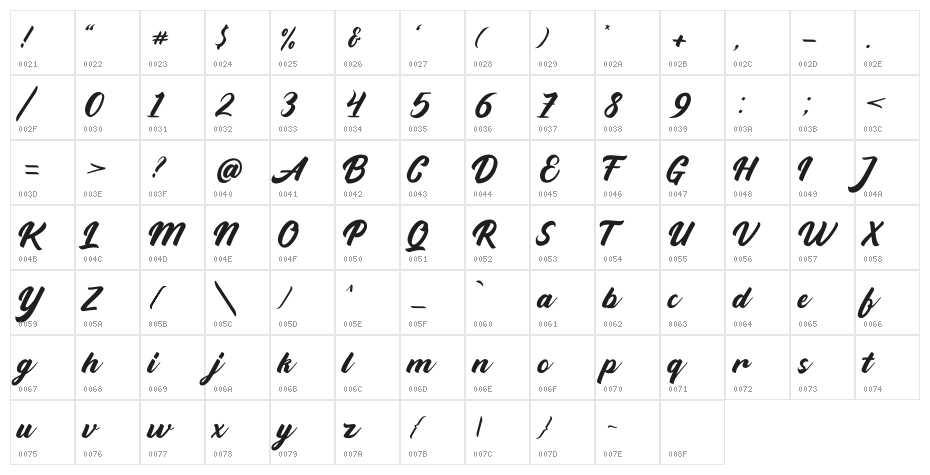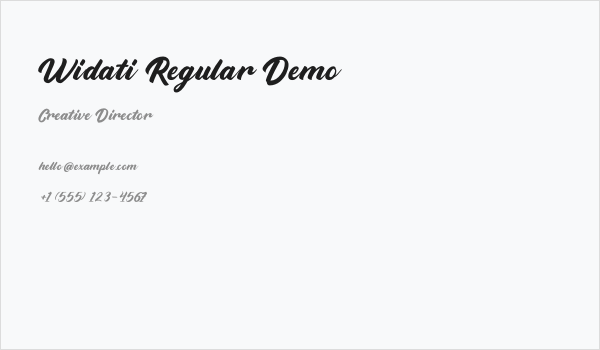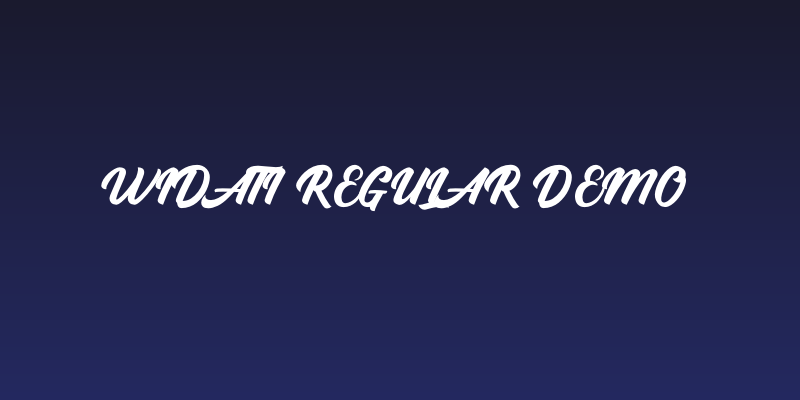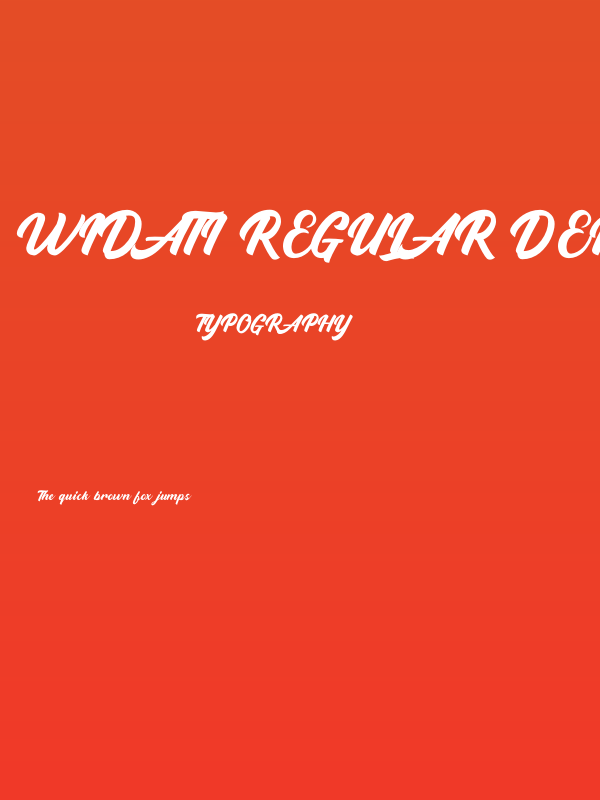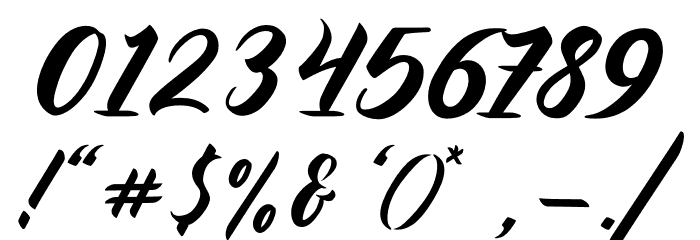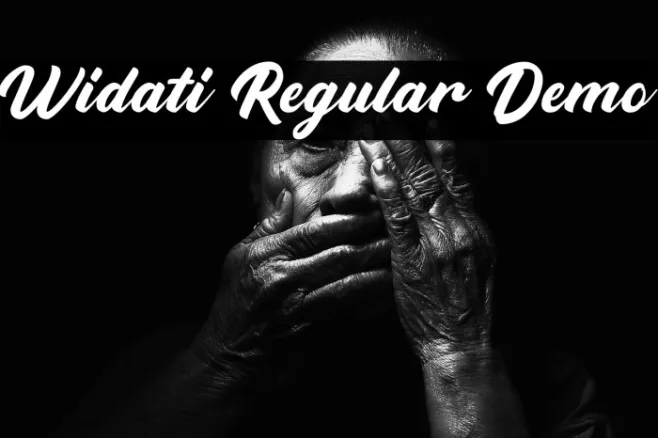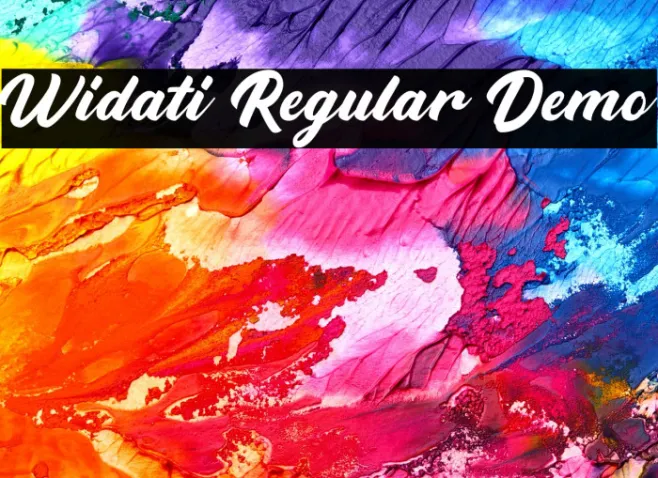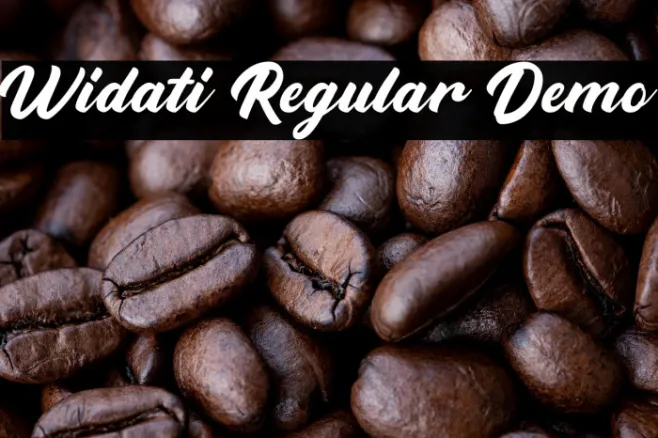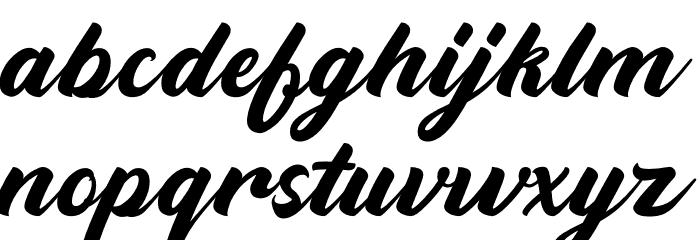
Widati Regular Demo Font
Widati Regular Demo Description
This font features a bold, flowing script style that exudes elegance and sophistication. The characters are interconnected, creating a seamless and fluid appearance. The uppercase letters are particularly striking, with sweeping curves and dramatic flourishes. The lowercase letters maintain a consistent style, with a slightly more subdued flair. Numbers and special characters are designed to match the overall aesthetic, ensuring a cohesive look across all text. The font's bold weight and high contrast between thick and thin strokes make it highly legible while retaining its decorative appeal.
| Proposed Projects | Ideal for wedding invitations, luxury branding, elegant packaging, and decorative headlines. |